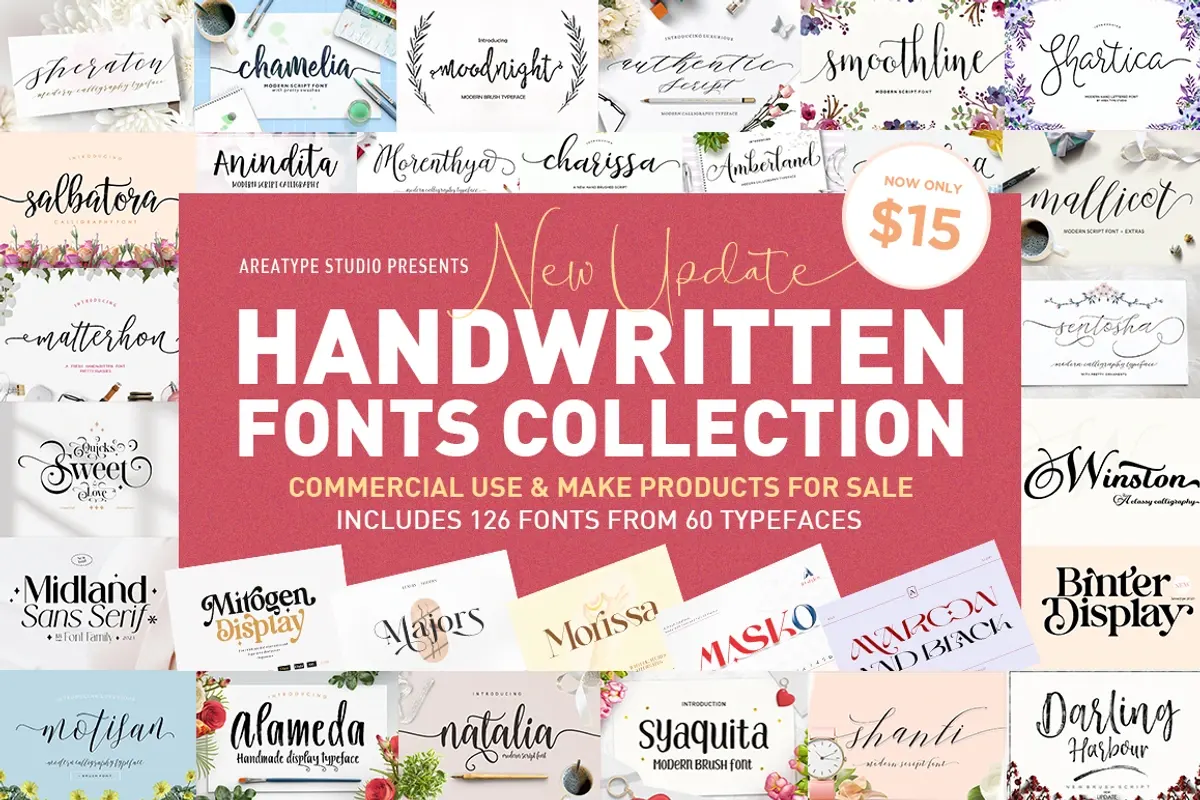
Handwritten Fonts Collection Free Download is a curated selection of elegant and playful handwritten fonts that add a personal, creative touch to your designs. This collection includes a variety of script and display styles, each featuring organic, flowing strokes that mimic authentic handwriting.
Perfect for invitations, logos, greeting cards, branding, social media graphics, and more, these fonts bring warmth and individuality to any project. Whether you're designing a casual brand identity, a romantic wedding invite, or an expressive poster, this collection provides a range of fonts to suit your needs.